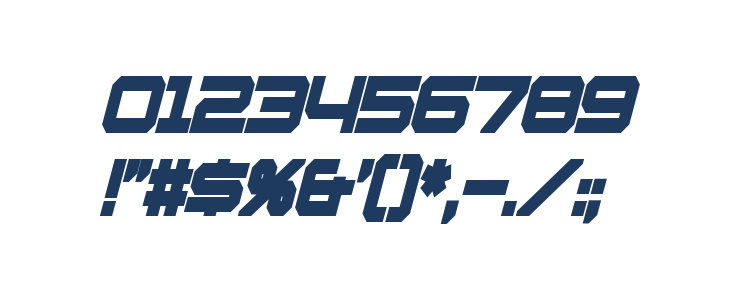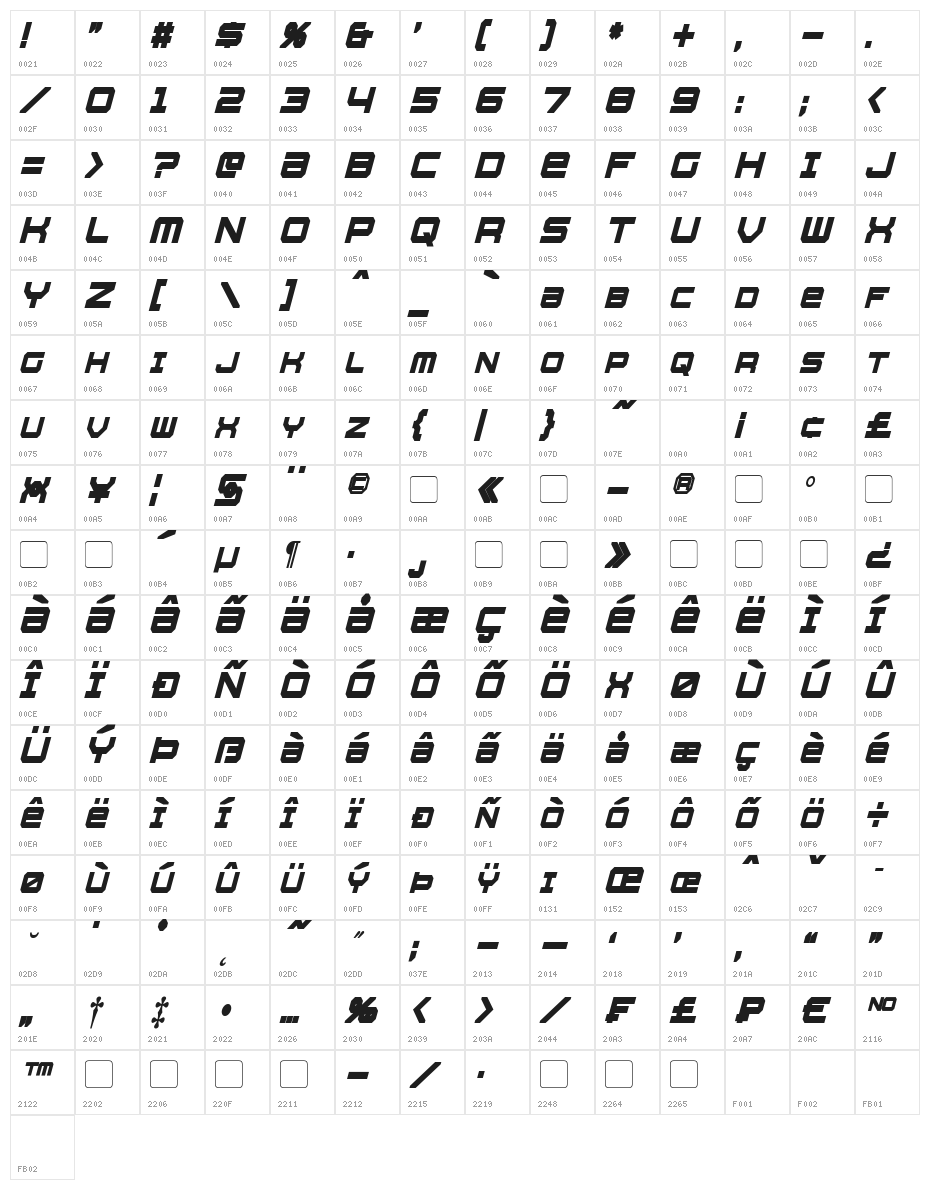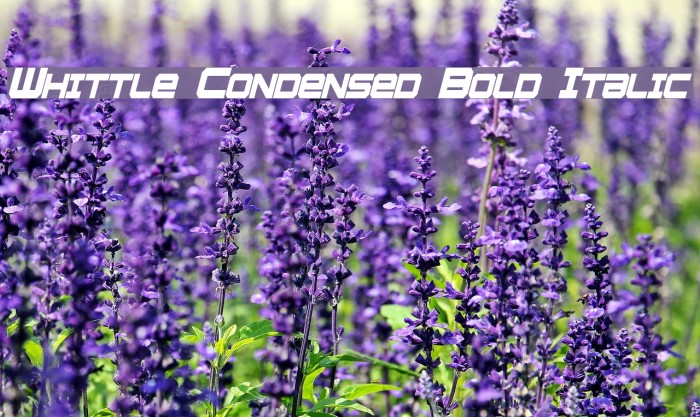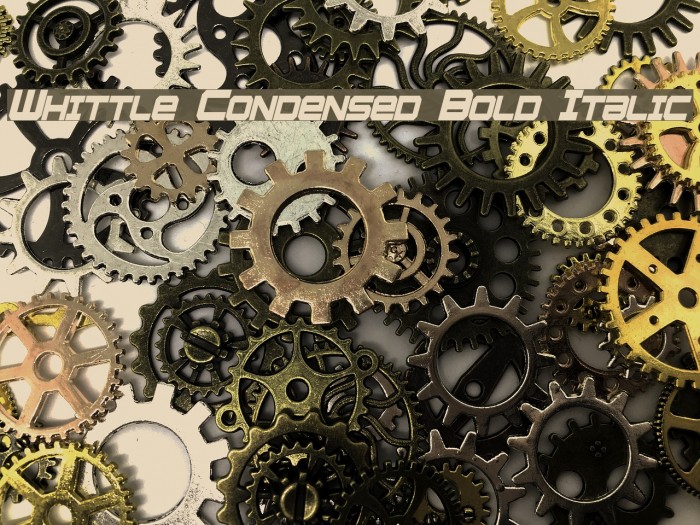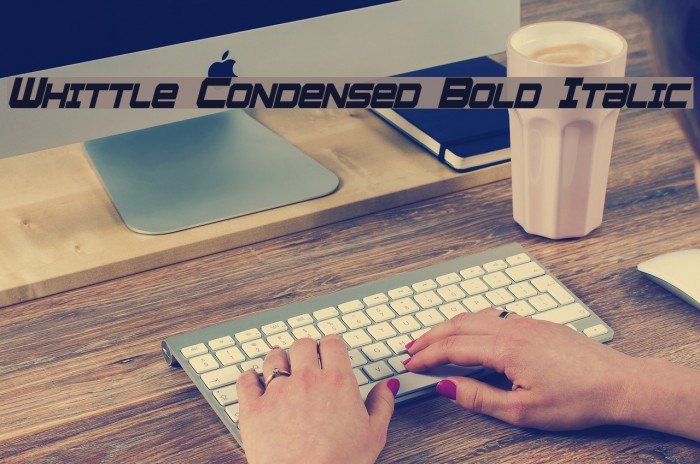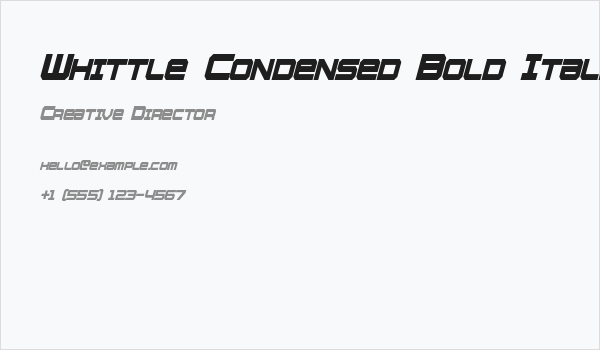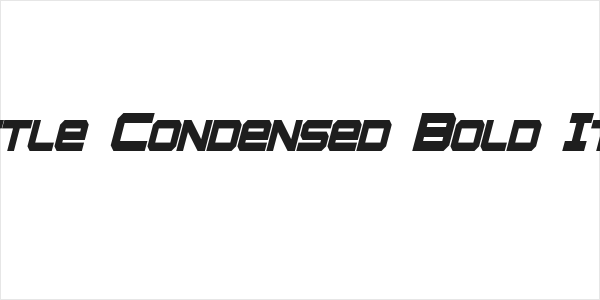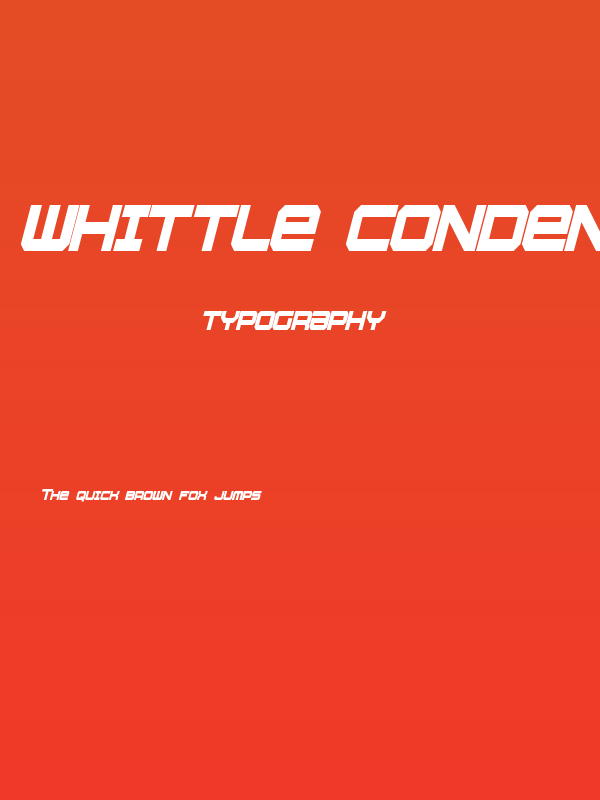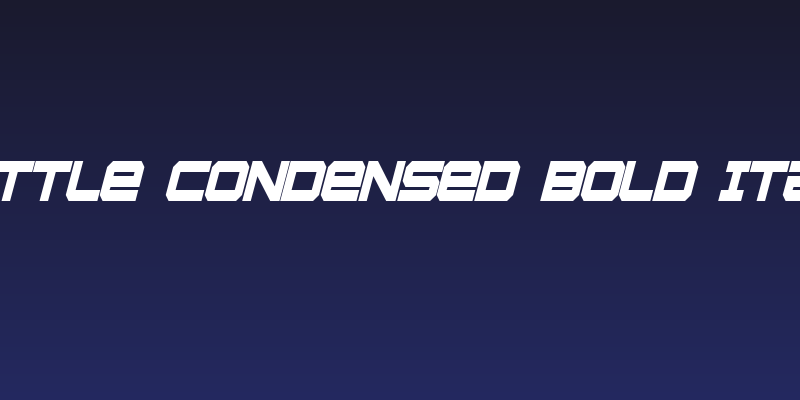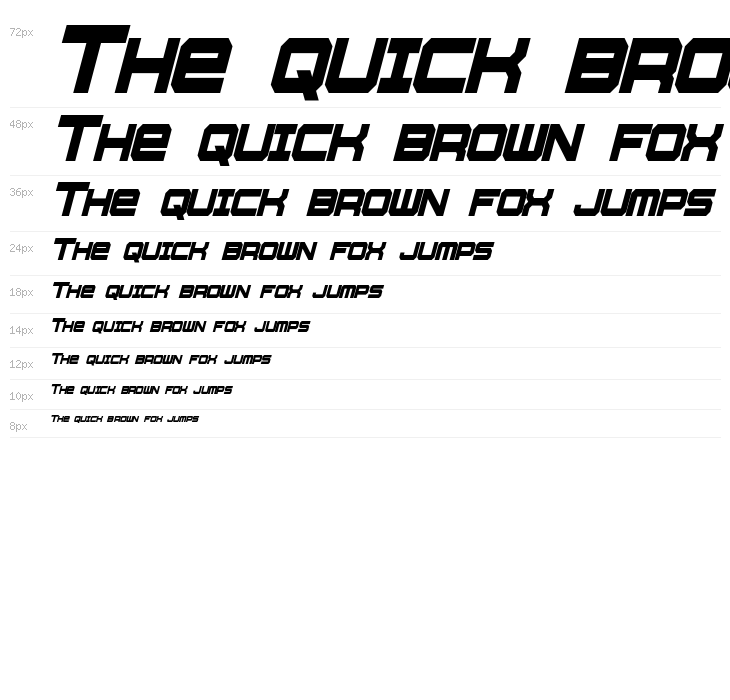
Whittle Condensed Bold Italic Font
Whittle Condensed Bold Italic Description
This font features a bold and italicized style with a condensed width, giving it a strong and dynamic appearance. The characters are angular and geometric, with sharp edges and a futuristic feel. The uppercase and lowercase letters maintain a consistent style, while the numbers and special characters complement the overall design. The boldness of the font makes it stand out, and the italic slant adds a sense of motion and urgency. The condensed nature of the font allows for efficient use of space, making it suitable for headlines and impactful text displays.